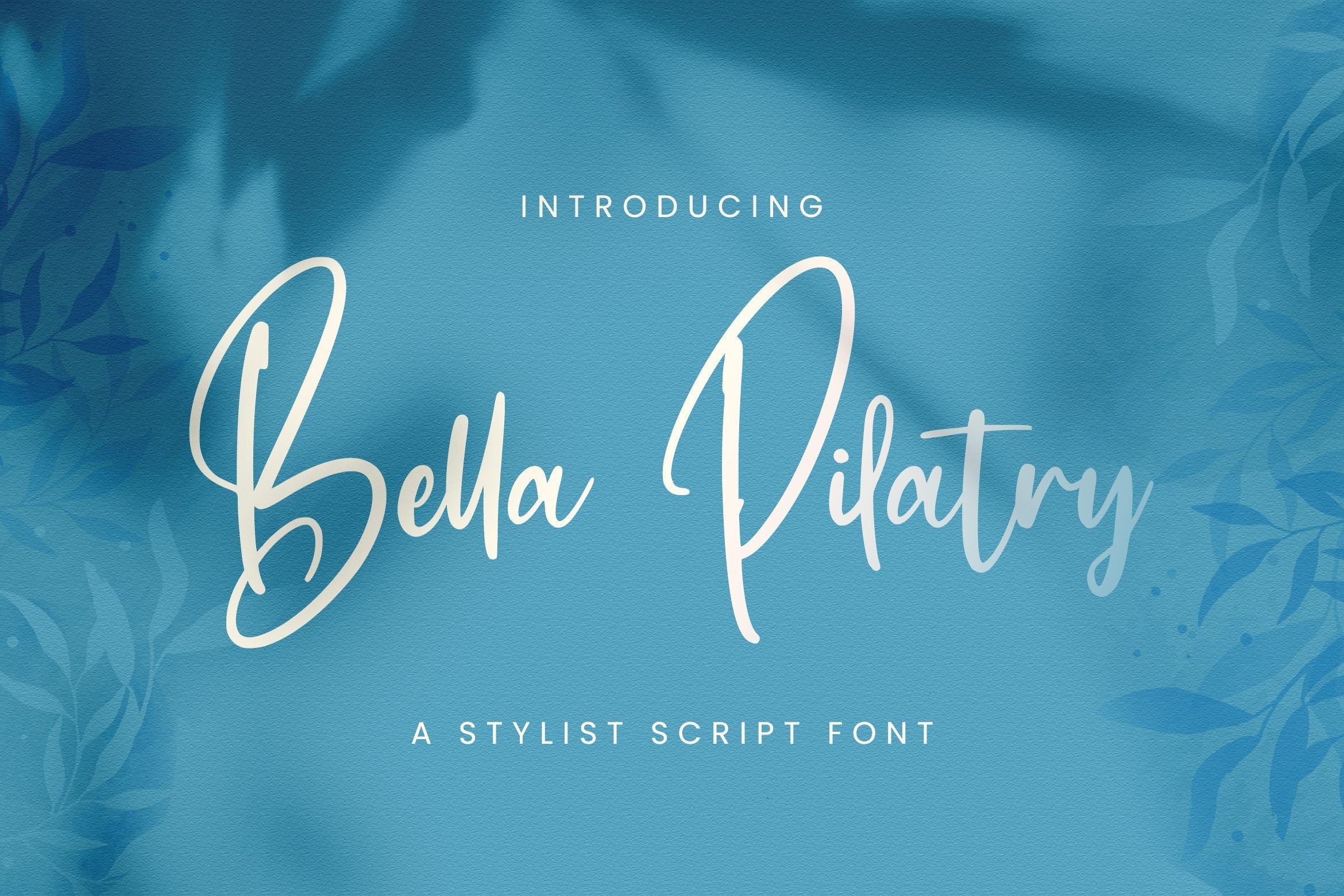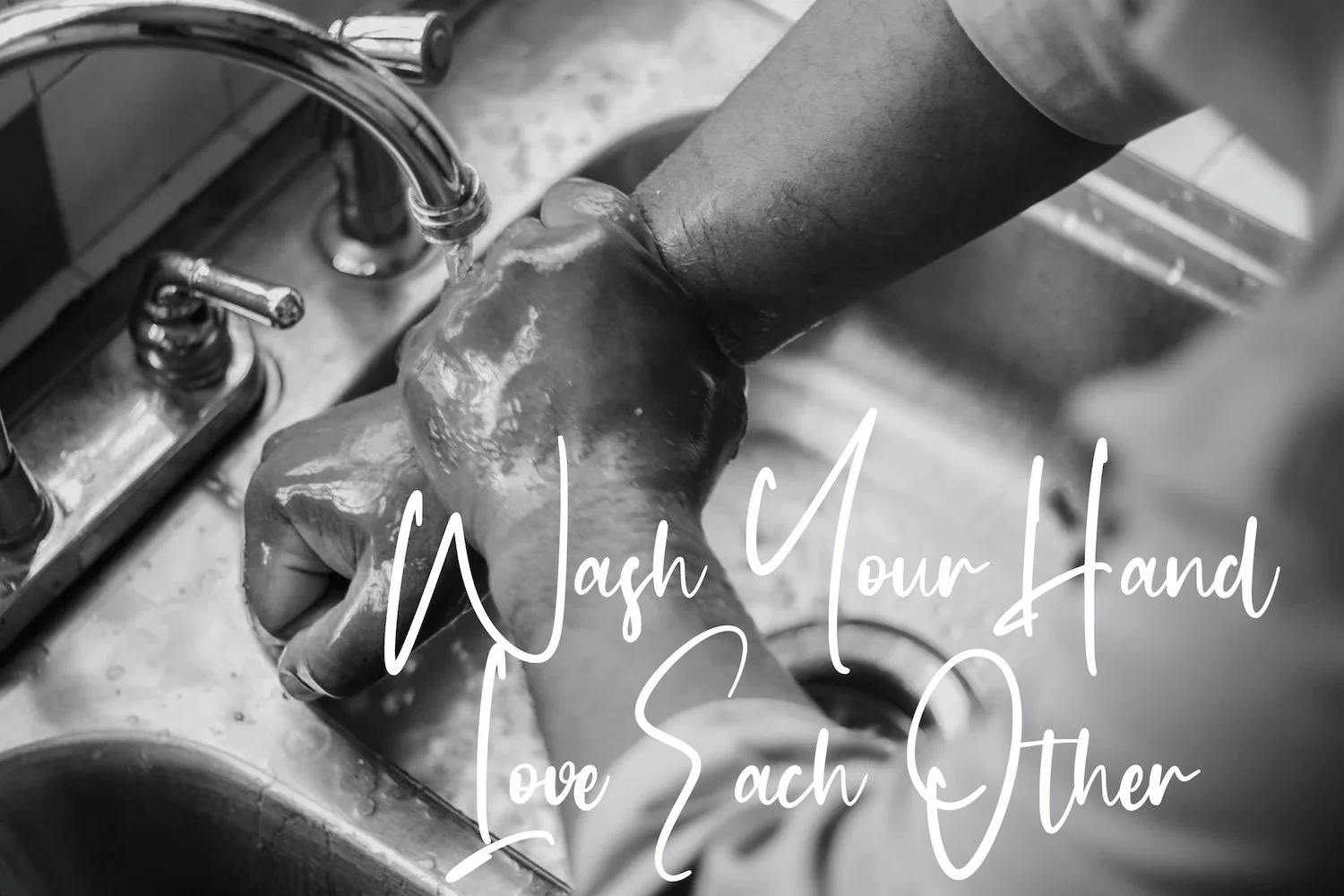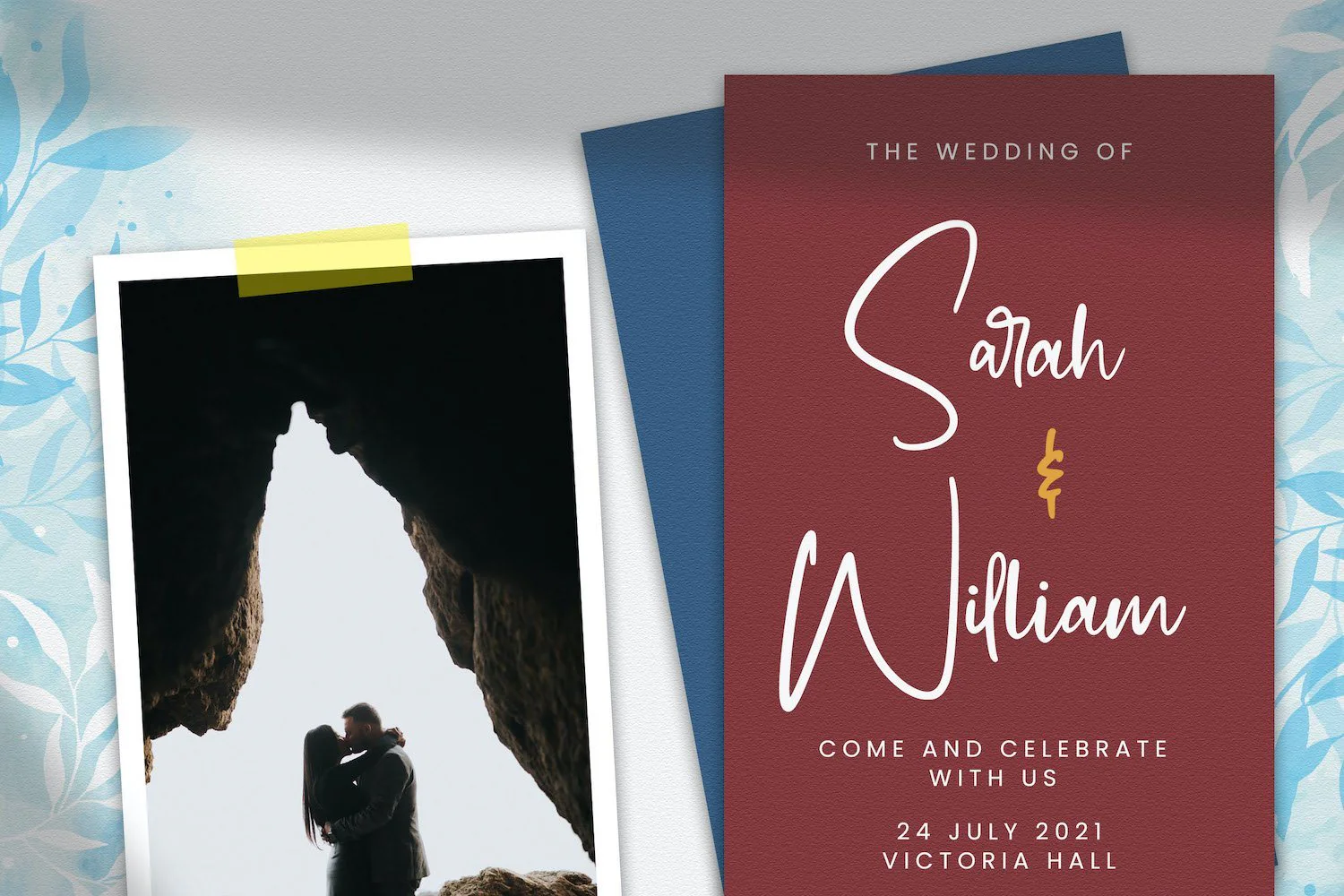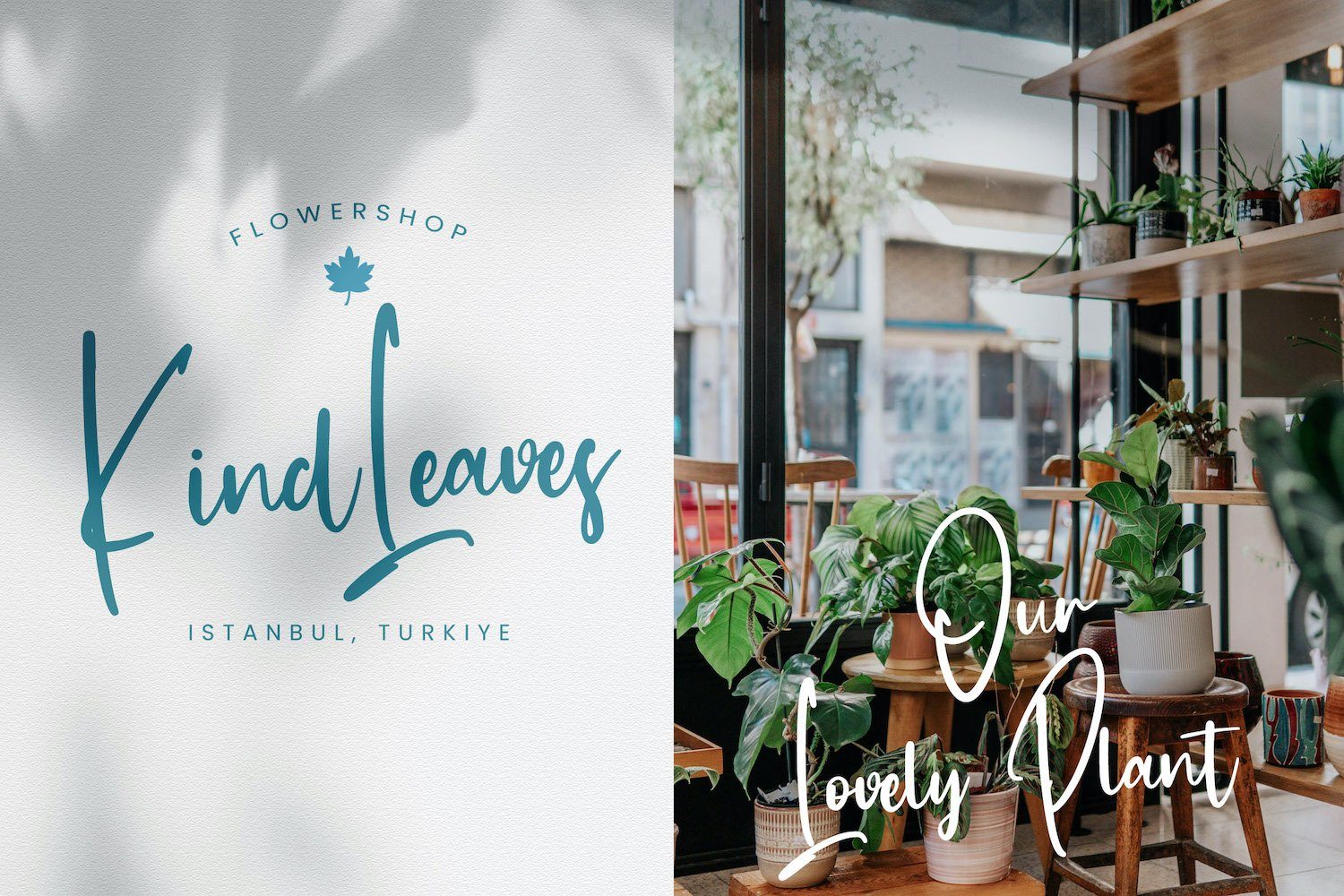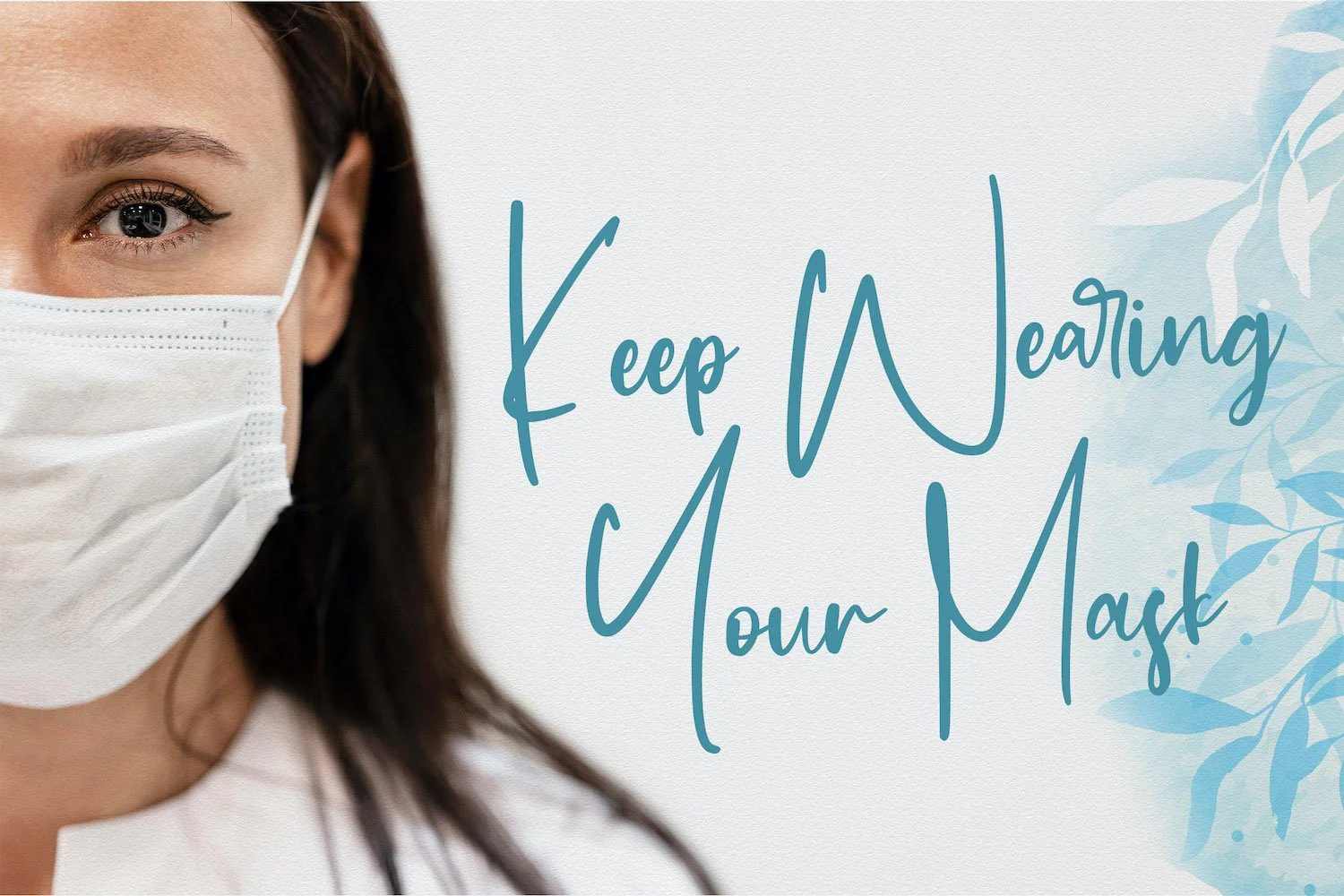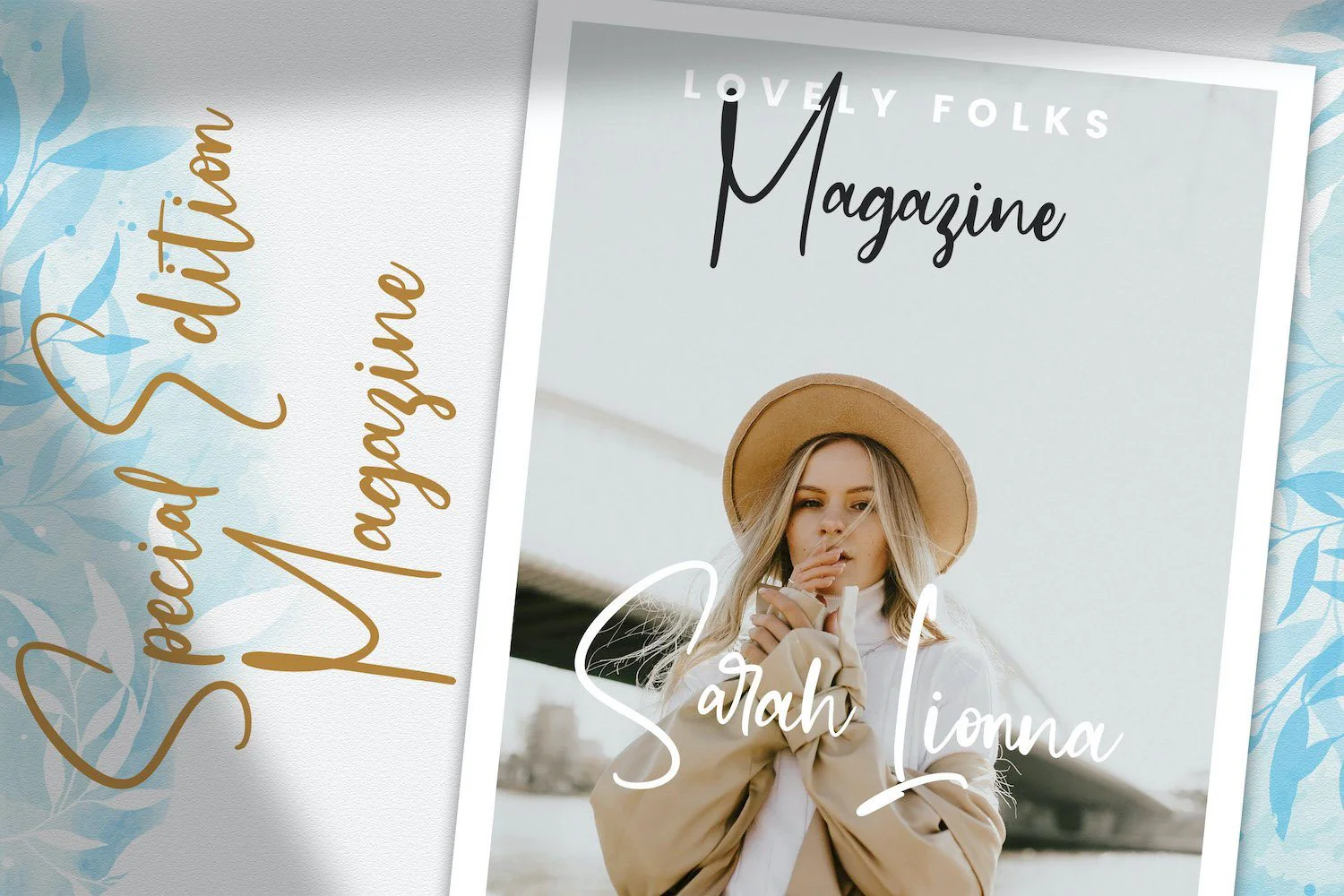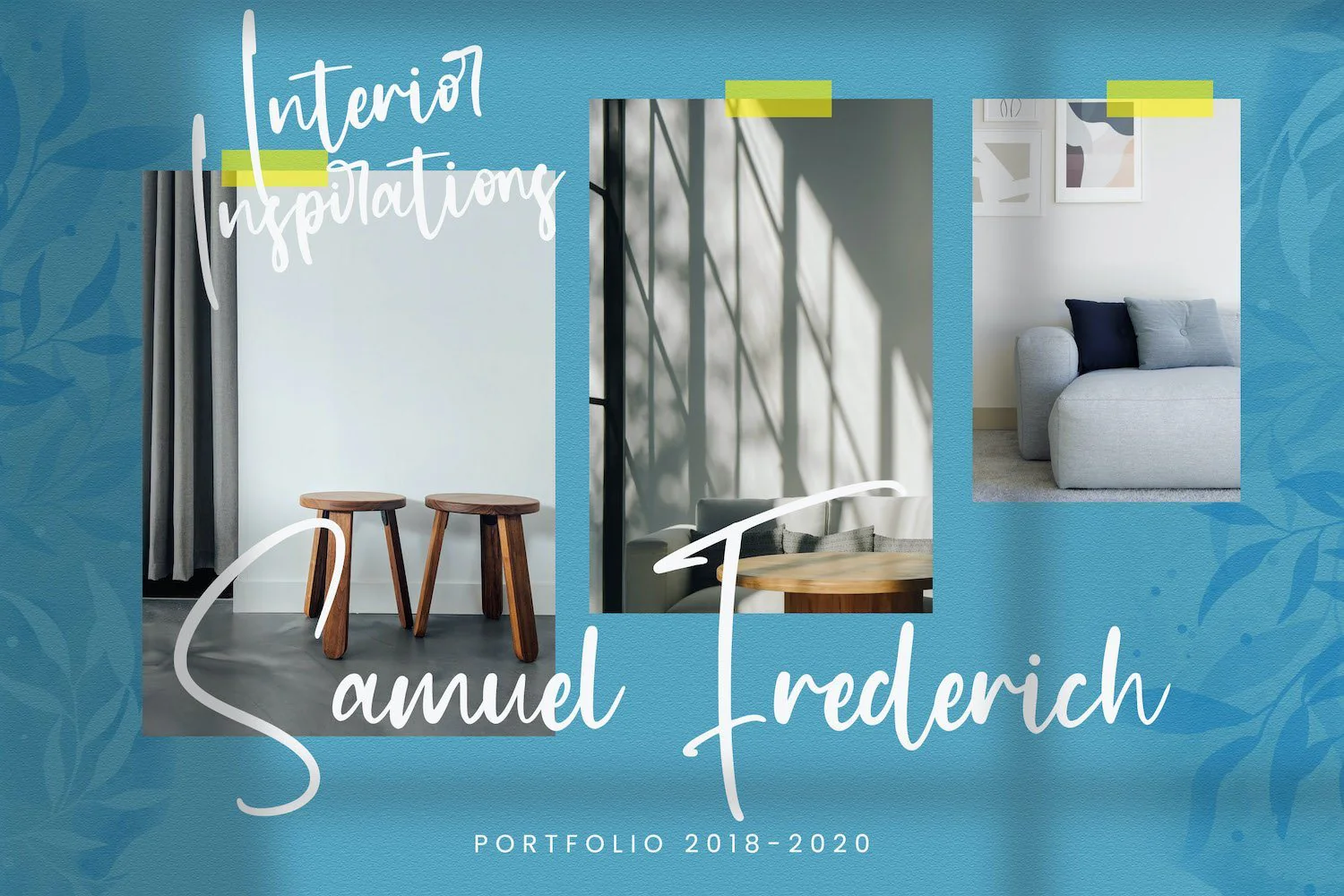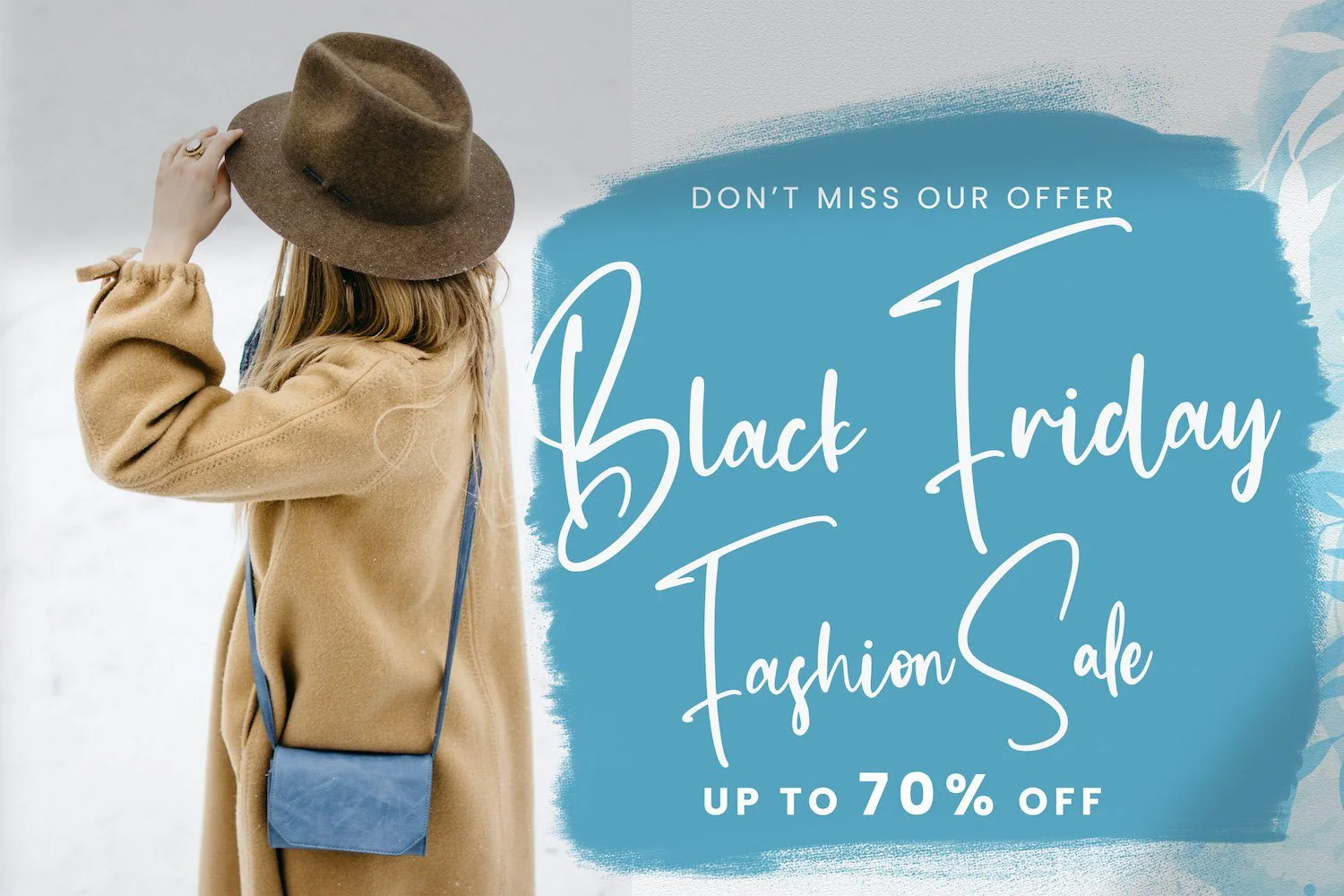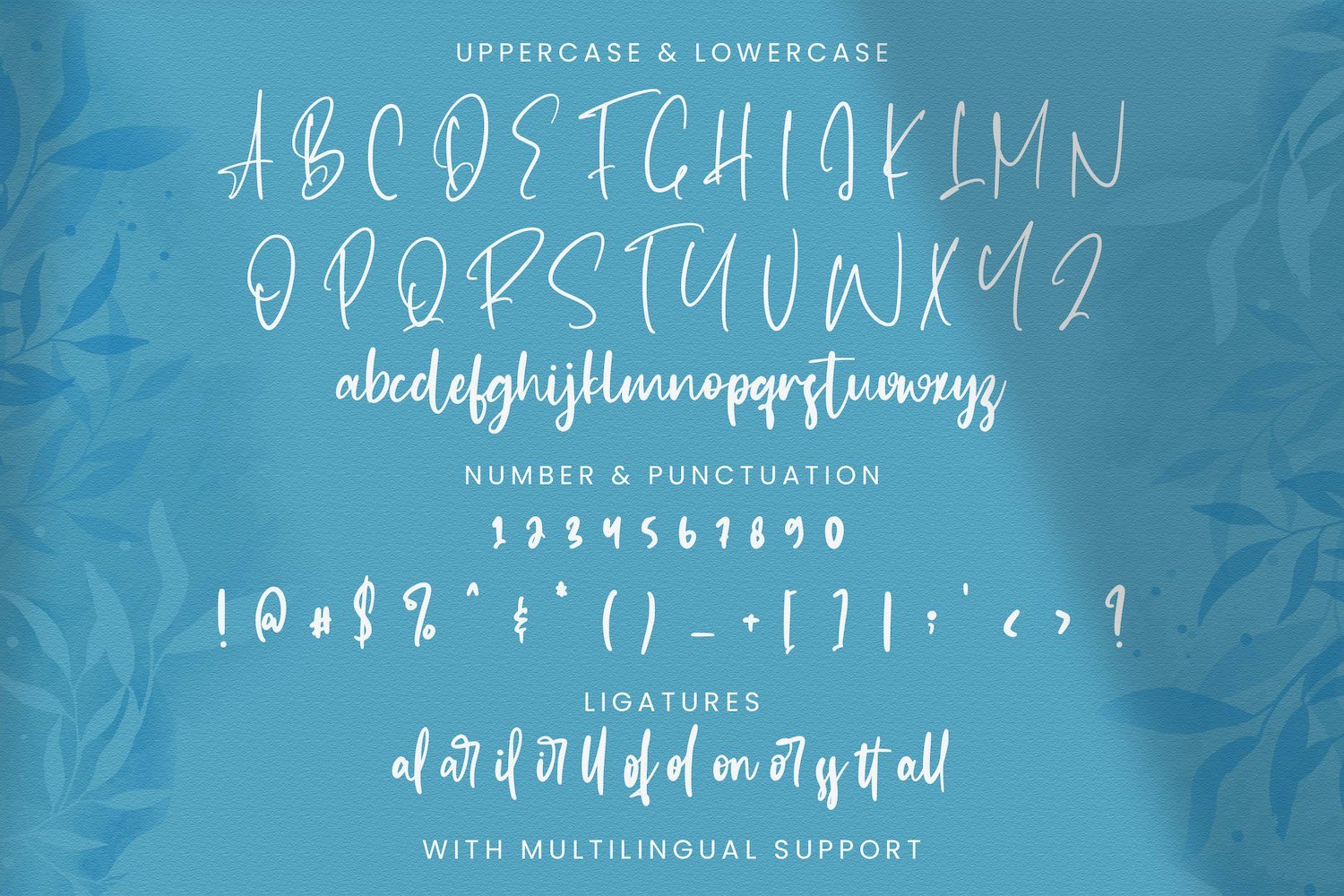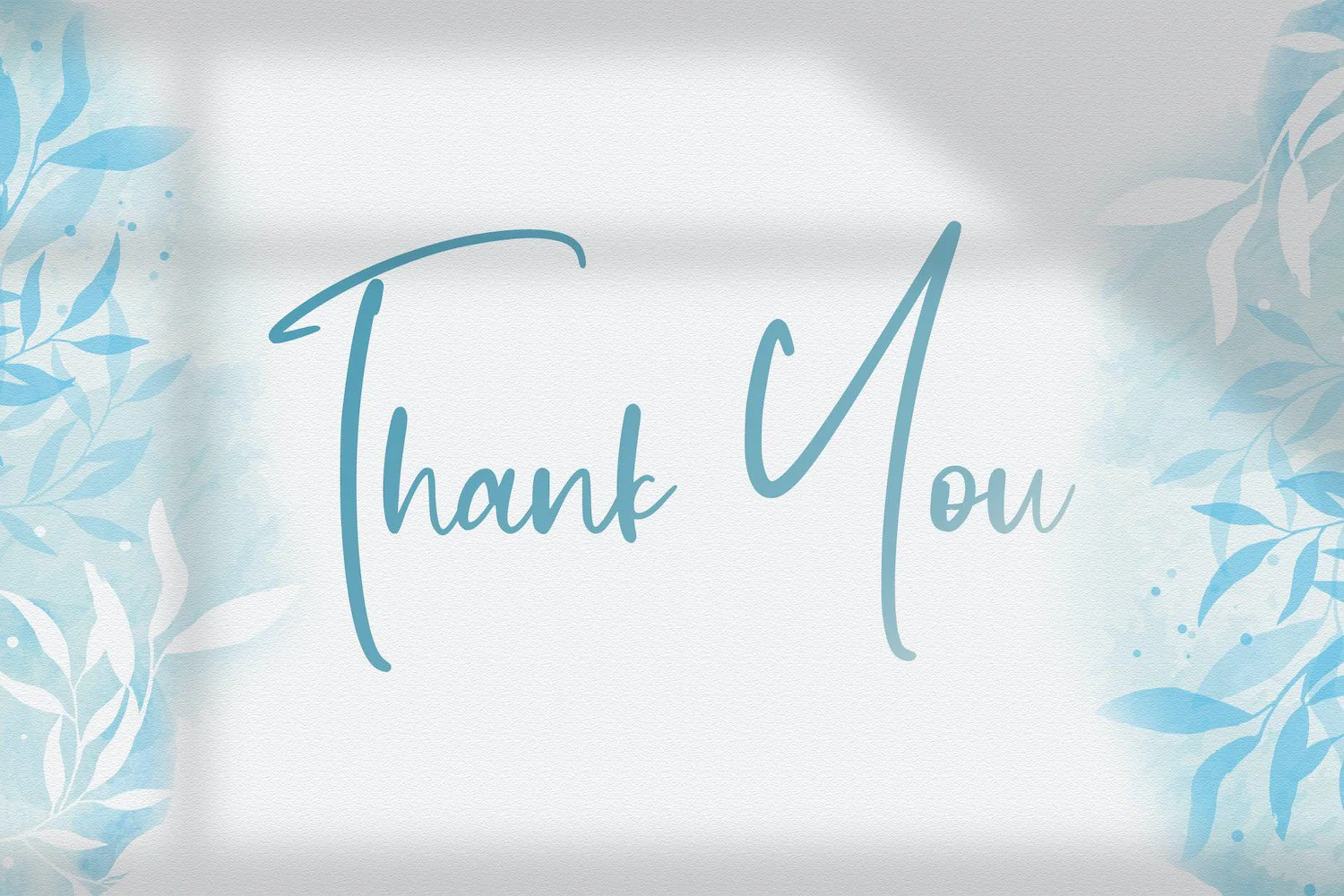
Bella Pilatry - Handwritten Font
Introducing Bella Pilatry - Handwritten Font
Bella Pilatry is a delicate, elegant and flowing handwritten font. It has beautiful and well balanced characters and as a result, it matches a wide pool of designs. Add it to your most creative ideas and notice how it makes them come alive!
Introducing Bella Pilatry - Handwritten Font
Bella Pilatry is a delicate, elegant and flowing handwritten font. It has beautiful and well balanced characters and as a result, it matches a wide pool of designs. Add it to your most creative ideas and notice how it makes them come alive!